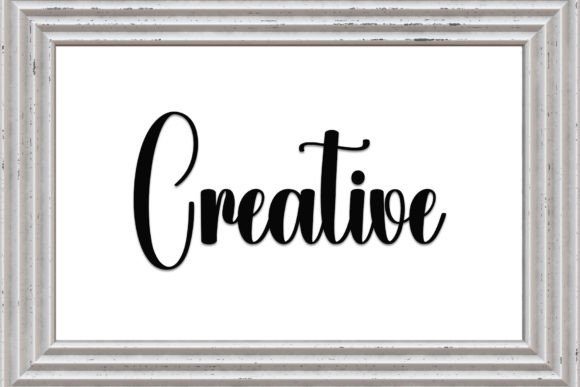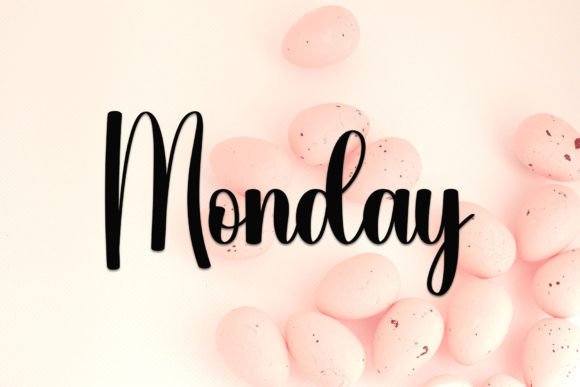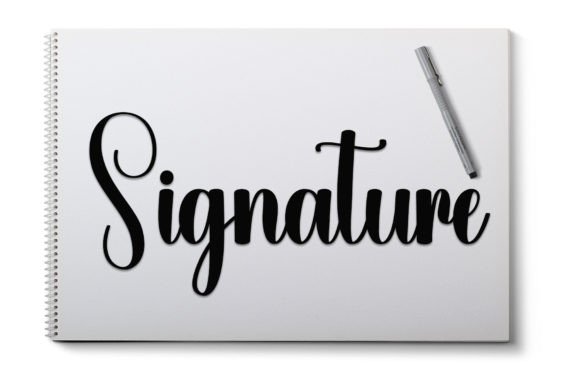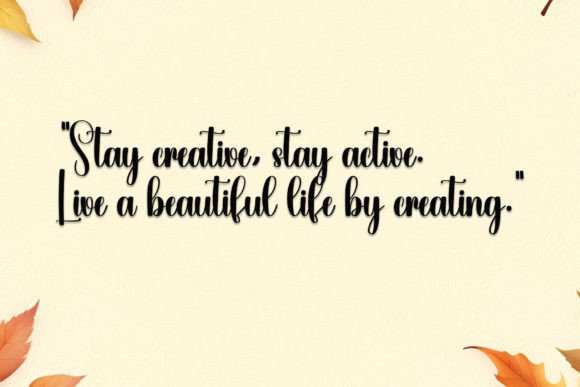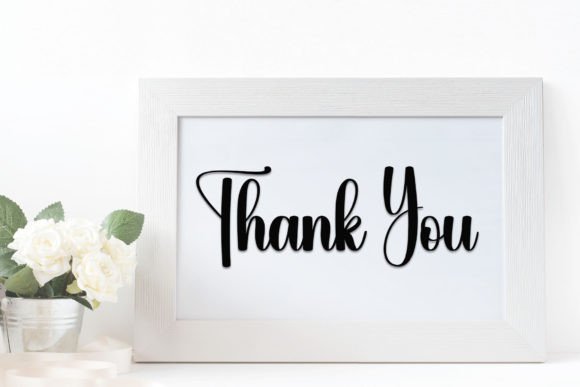
Introducing Action Font: Elevate Your Designs with Timeless Elegance
In the world of typography, fonts play a crucial role in conveying the tone and personality of a design. For designers and crafters seeking to add a touch of sophistication and class to their projects, Action Font is an excellent choice. This trendy handwritten font boasts a contemporary atmosphere and impeccable form, drawing inspiration from timeless classic calligraphy.
The Essence of Action Font
Action Font is a beautiful, elegant, and versatile typeface that can elevate any design project. Its unique blend of traditional calligraphy and modern flair makes it perfect for a wide range of applications, from branding and advertising to packaging and digital media. With its flowing lines and precise letterforms, Action Font exudes a sense of refinement and luxury, making it an ideal choice for designers looking to create high-end designs.
Key Features of Action Font
- Trendy and Contemporary: Action Font features a modern, fresh look that’s perfect for designers seeking to create designs that are both stylish and current.
- Handwritten with Flair: The font’s handwritten style adds a touch of personality and warmth to any design, making it ideal for projects that require a more personal touch.
- Inspired by Classic Calligraphy: Action Font draws inspiration from timeless classic calligraphy, ensuring that it remains elegant and refined.
- Impeccable Form: The font’s precise letterforms and flowing lines make it a joy to use, with a high level of legibility and readability.
Uses of Action Font
Action Font is a versatile typeface that can be used in a wide range of design projects, including:
- Branding and Identity: Use Action Font to create elegant and sophisticated brand identities that make a lasting impression.
- Advertising and Marketing: The font’s modern and trendy look makes it perfect for advertising and marketing materials, such as brochures, flyers, and social media graphics.
- Packaging: Add a touch of luxury and sophistication to your packaging designs with Action Font.
- Digital Media: The font is also suitable for digital media, including website headers, email newsletters, and social media graphics.
Tips for Using Action Font
To get the most out of Action Font, here are a few tips to keep in mind:
- Pair with Neutral Backgrounds: Action Font looks best on neutral backgrounds, which allow the font’s elegant lines and precise letterforms to take center stage.
- Experiment with Colors: The font works well with a range of colors, so don’t be afraid to experiment and find the perfect combination for your design.
- Use for Headings and Titles: Action Font is perfect for headings and titles, where its elegant and refined style can make a lasting impression.
In conclusion, Action Font is a beautiful and versatile typeface that’s perfect for designers and crafters seeking to add a touch of elegance and class to their design projects. With its trendy and contemporary look, handwritten style, and impeccable form, Action Font is an excellent choice for a wide range of applications. Whether you’re working on branding and identity, advertising and marketing, packaging, or digital media, Action Font is sure to elevate your designs and make a lasting impression.